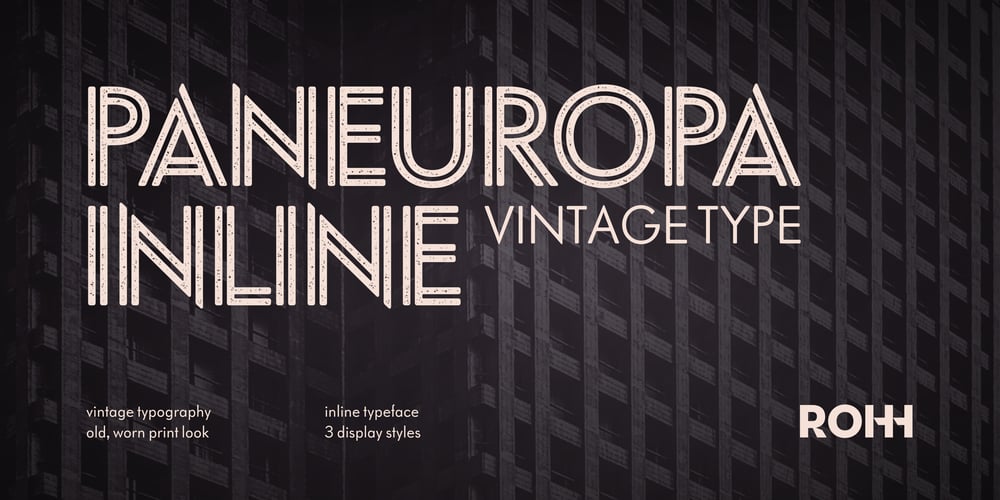
Paneuropa Inline Font Family was designed by Roch Modrzejewski and published by ROHH. Paneuropa Inline contains 3 styles and family package options. Introducing Paneuropa Inline, your ultimate ally for retro charm! This engaging display typeface is a nod to classic modernist design from Poland, now wearing its best grunge suit. We’ve reworked the original, giving it a fresh coat of polish (pun intended) for improved consistency in letterforms and spacing.With three unique styles featuring distinct worn and weathered effects, Paneuropa Inline is ready to handle all your vintage design needs. Whether you’re designing captivating café menus, artisanal labels, or old-school apparel, it brings a nostalgic touch that’s hard to resist.For the stunning typographic layouts, mix it with its text mate, Paneuropa 1931.Key Features• 3 styles• uppercase design• different weathering degrees• authentic vintage flavor• 450 glyphs• Extended Latin language support